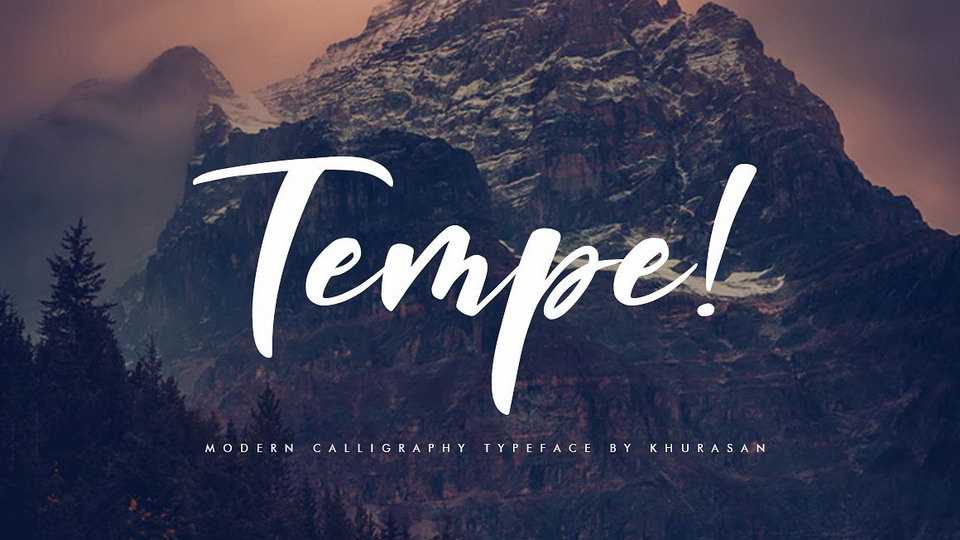
Download Tempe! Script, an attractive bold script font, fresh & modern style. It’s suitable for logo, branding, greeting card, poster and any design that you create.